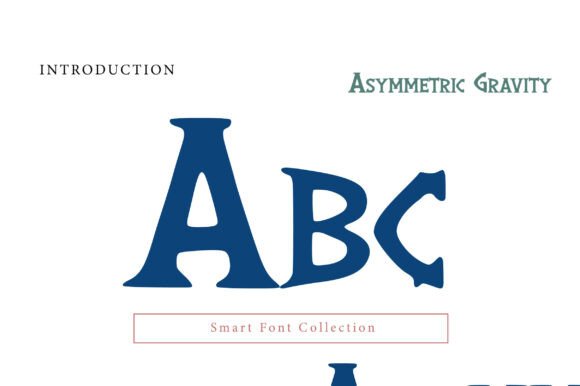
Unleash the Power of Darkness with the Asymmetric Gravity Font
Remember the moment when you stumbled upon that perfect font that elevated your design from ordinary to extraordinary? For designers, it’s a feeling like no other – a spark of inspiration that sets your creative juices flowing and your imagination ablaze. As a designer, you know that the right font can make or break a project. That’s why we’re excited to introduce the Asymmetric Gravity Font, a bold, gothic-inspired display serif font that’s sure to leave a lasting impression.
With its sharp wedge serifs, dramatic stroke contrast, and distinctive medieval character structure, the Asymmetric Gravity Font is perfect for designers who want to add a touch of mystery and drama to their projects. Whether you’re working on a fantasy concept, a gothic visual, or a bold headline typography, this font adds depth, intensity, and character to your composition.
Asymmetric Gravity Font Key Features
- Unique Characteristics: The Asymmetric Gravity Font features a unique, hand-drawn design with a subtle asymmetry that adds a touch of personality to any text-based element.
- Font Style: The font comes in two styles: Regular and Bold, providing flexibility in font weight and emphasis.
Asymmetric Gravity Font Review
Overall, I’m quite impressed with the Asymmetric Gravity Font. It has a unique, futuristic feel that’s perfect for sci-fi themed projects or anything that needs a bit of edge. ✨
Here are some of the things that I like about this font:
- Uniqueness: Asymmetric Gravity is unlike any other font I’ve seen. Its irregular shapes and lines make it stand out from the crowd. ✨
- Customizability: The font is highly customizable, with options to adjust gravity, weight, and other settings. This makes it perfect for designers who want to fine-tune their projects. ✨
Overall, I’d give the Asymmetric Gravity Font 4 out of 5 stars. It’s a unique and powerful tool that’s perfect for designers who want to create something truly special. However, it may not be the best choice for every project or designer.
The Asymmetric Gravity Font is suitable for a variety of designs, including:
– Creative logos and branding materials
– Editorial and magazine layouts
– Social media graphics and ads
– Infographics and data visualizations
– Custom typography and lettering art
For optimal results, combine the Asymmetric Gravity Font with bold lines, vibrant colors, and creative text arrangements. Experiment with different font sizes, styles, and layouts to create a unique and eye-catching design.